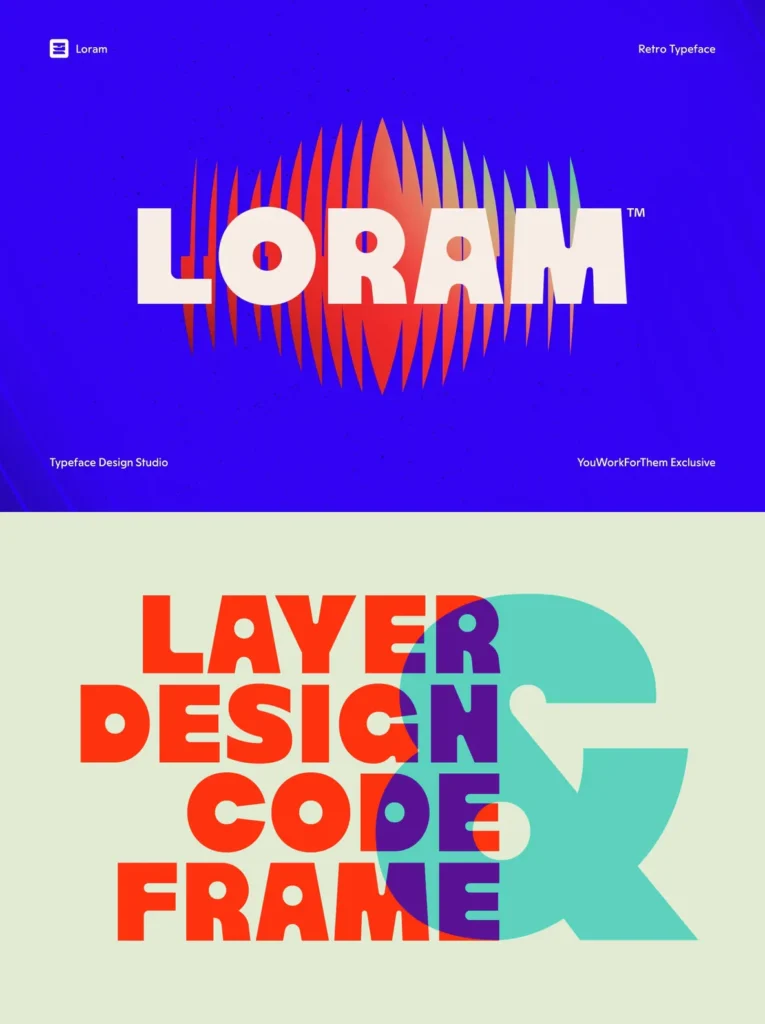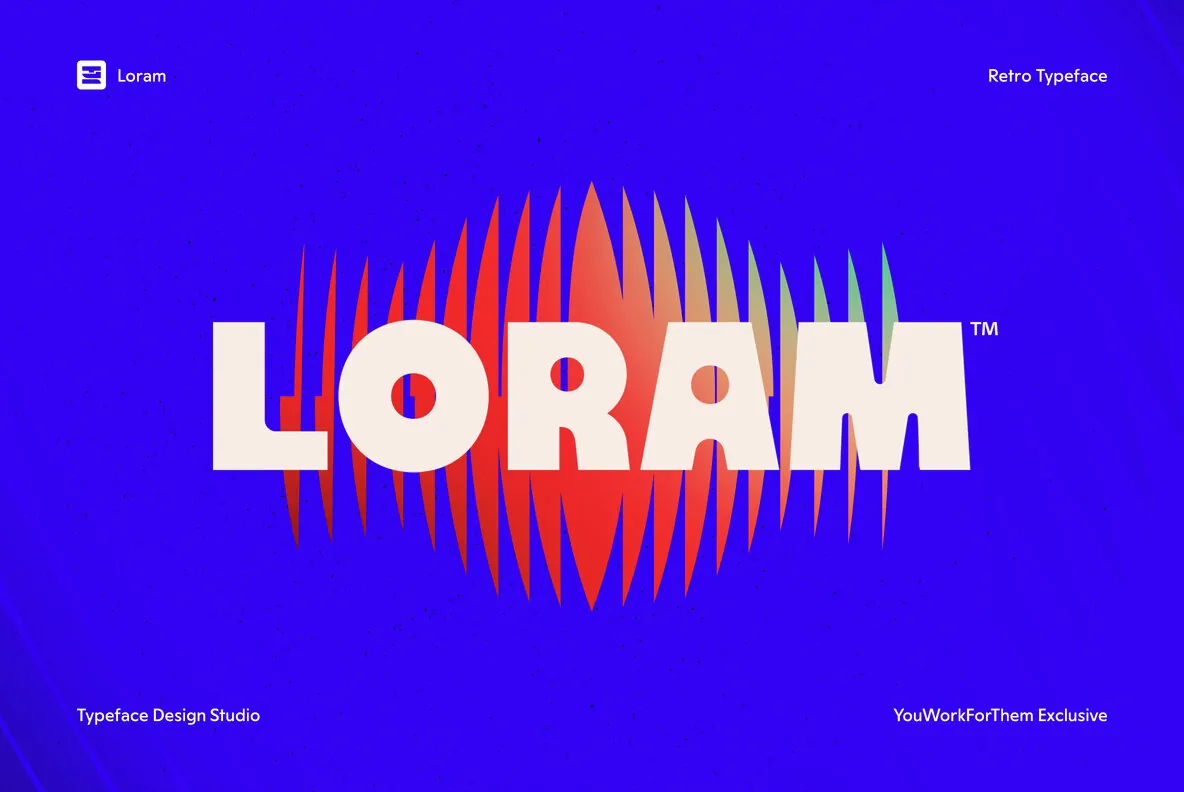
Loram: A Bold Modern Sans with Retro Warmth
Loram is an all-caps sans-serif font that distinguishes itself through its bold, thick letterforms, crafted by Typeface Design Studio exclusively for YouWorkForThem. Designed to capture attention in large-scale headlines and digital posters, it fuses modern appeal with subtle retro nuances: think soft curves, rounded corners, and compact proportions that bring warmth without compromising impact.
Ideal for Eye-Catching Designs
Loram excels in making a strong visual impression. Whether it’s for social media carousels, album launch announcements, or dominating headlines on music festival billboards, this font maintains a commanding presence. Its simple geometric forms receive unique character through custom cuts on “R,” “A,” and “Y,” offering a distinct design voice.
Features:
Suitable for both print and digital artwork
Complements gradients and saturated color schemes
Adapts well to motion graphics and editorial design
Loram lives comfortably in both the past and future—graphic, punchy, and undeniably striking.